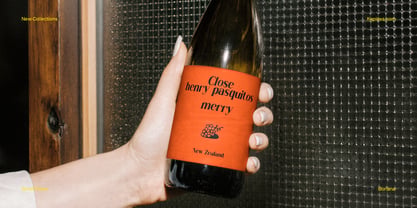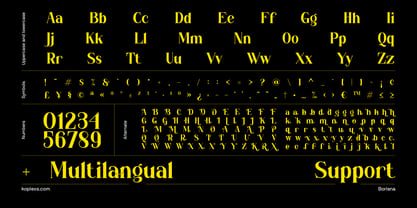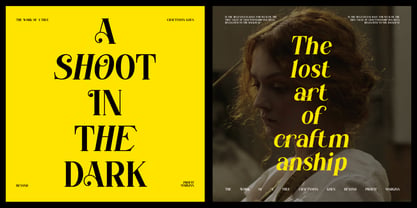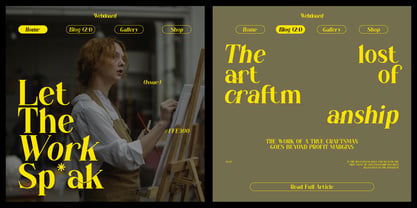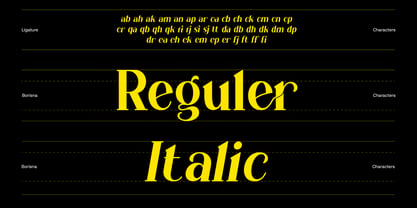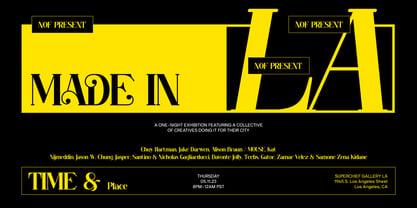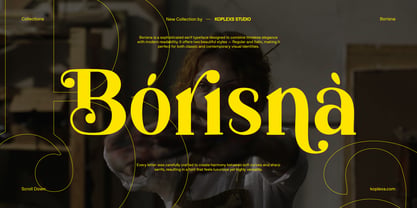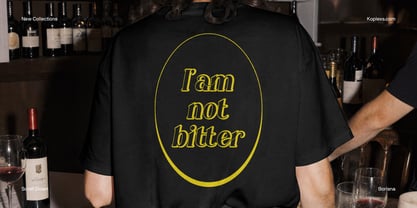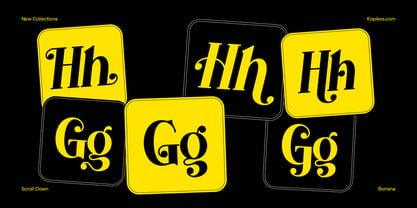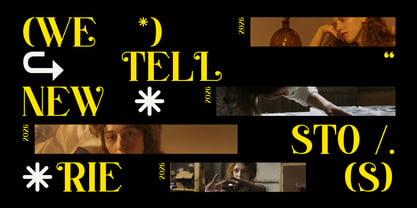
Borisna
The Borisna Font Family was designed by Ahmad Muslimin and published by Koplexs Studio. Borisna contains 2 styles and family package options. More about this family
Borisna is an expressive serif family that blends classic elegance with a bold contemporary attitude. Its high-contrast letterforms combine sharp serifs, graceful curves, and distinctive curled details, creating a refined character that feels both editorial and artistic.
The design is built to make typography part of the visual identity. Large headlines reveal Borisna’s most recognizable details, including dramatic proportions, sculpted terminals, and decorative forms that add personality without losing clarity. The family includes Regular and Italic styles, giving designers flexibility for both strong display typography and more expressive compositions.
Borisna works especially well in fashion and beauty branding, magazines, editorial layouts, luxury packaging, wine labels, posters, advertising, website headlines, social media graphics, merchandise, restaurant identities, and creative campaigns.
Its combination of sophisticated structure and unusual details makes Borisna a strong choice for designers looking for a serif with more individuality than a traditional editorial face. It can feel elegant and restrained in a minimal layout, or bold and experimental when used at a large scale.
Whether applied to a refined brand identity or an image-led editorial project, Borisna brings a memorable voice and a polished visual presence.